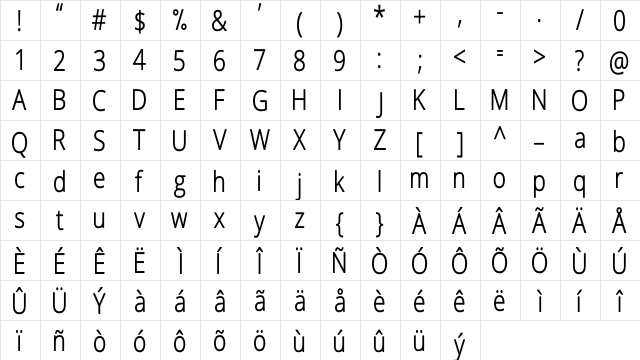
Novus Light Regular
Design Context for Novus Light Typeface
Novus Light offers clean, dependable letterforms without strong stylistic allegiance, making it a practical choice for designers who need flexibility. The delicate stroke weight brings airiness and refinement to layouts.